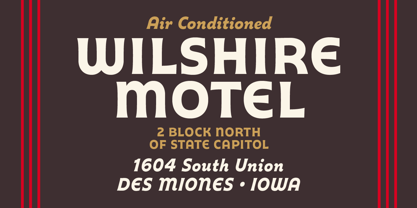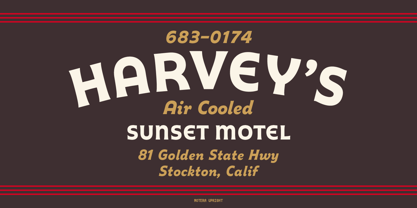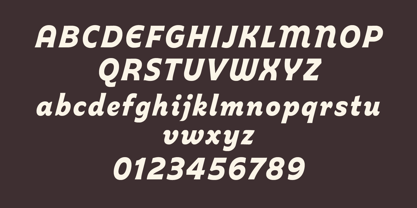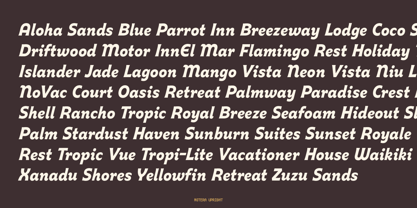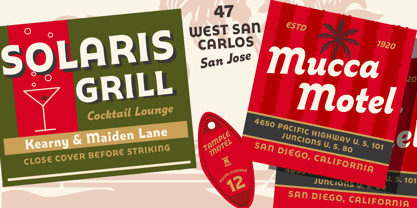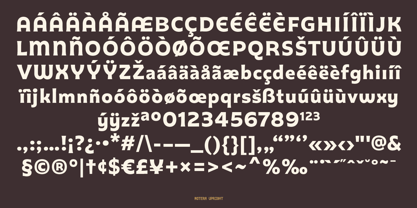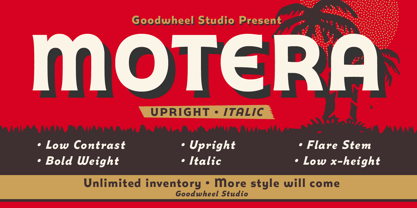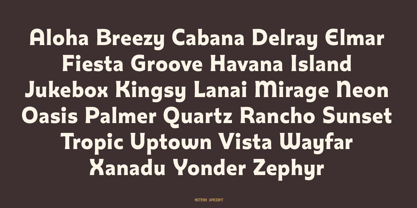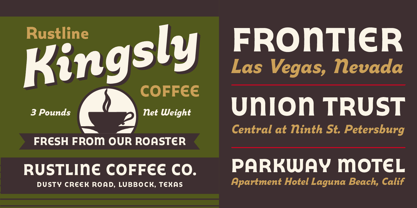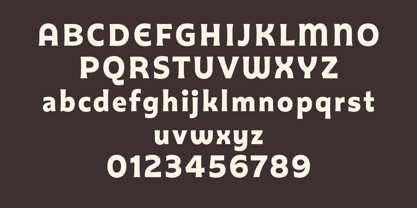
GW Motera
by Goodwheel Studio
The GW Motera Font Family was designed by Ilham Herry, Adam Fathoni Haris and published by Goodwheel Studio. GW Motera contains 2 styles and family package options. More about this family
Motera is display typeface inspired by classic motel typography from mid-century America, this font features a distinctive retro silhouette shaped by its low x-height and italic flare stems. It comes in two styles, Upright and Italic, designed to pair seamlessly with one another. Both styles are strong enough to function as primary display lettering, offering flexible combinations for expressive retro-inspired typography. Best suited for vintage logos, branding, posters, labels, signage, packaging, and other nostalgic display applications.
Designers: Ilham Herry, Adam Fathoni Haris
Foundry: Goodwheel Studio